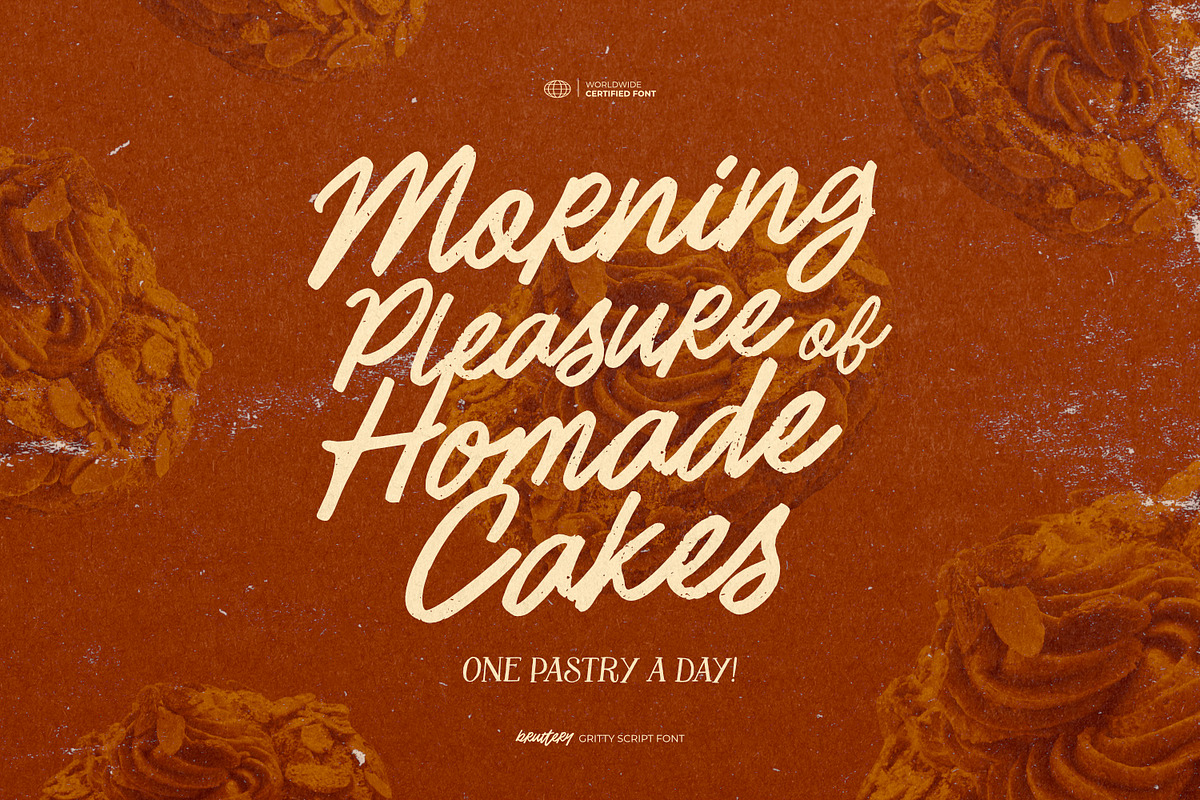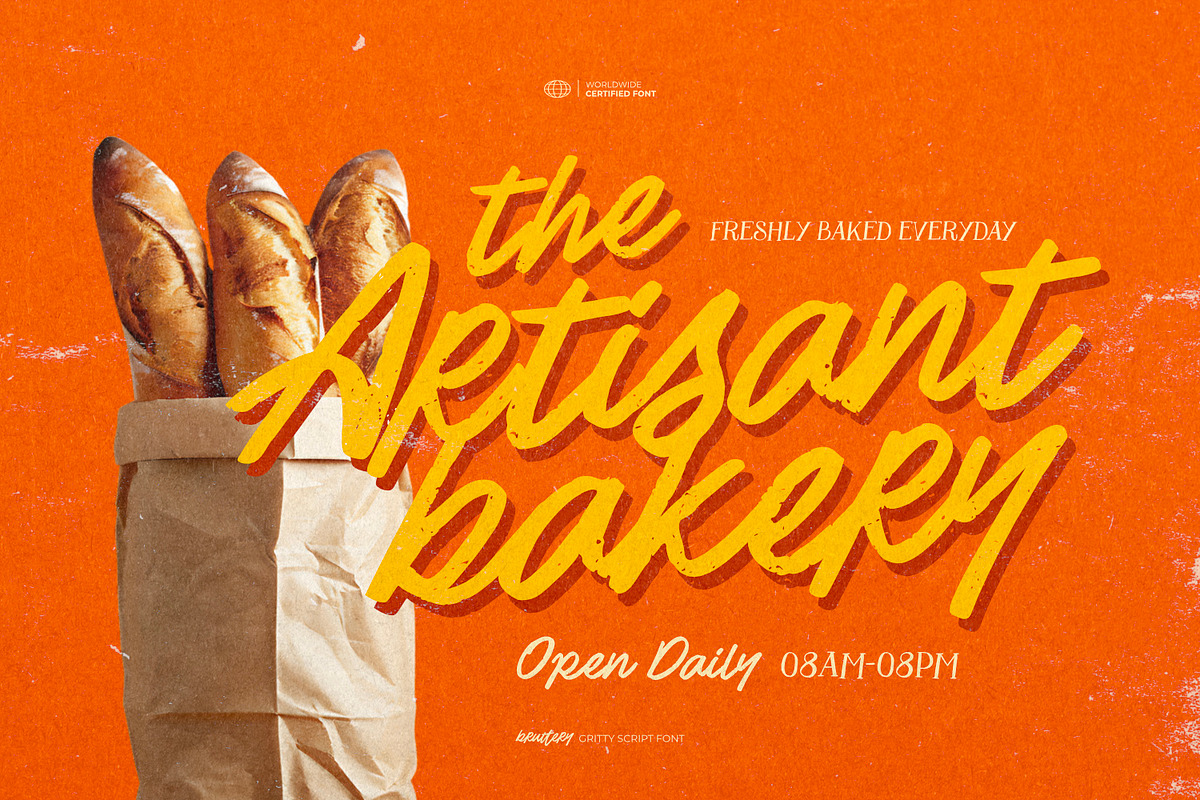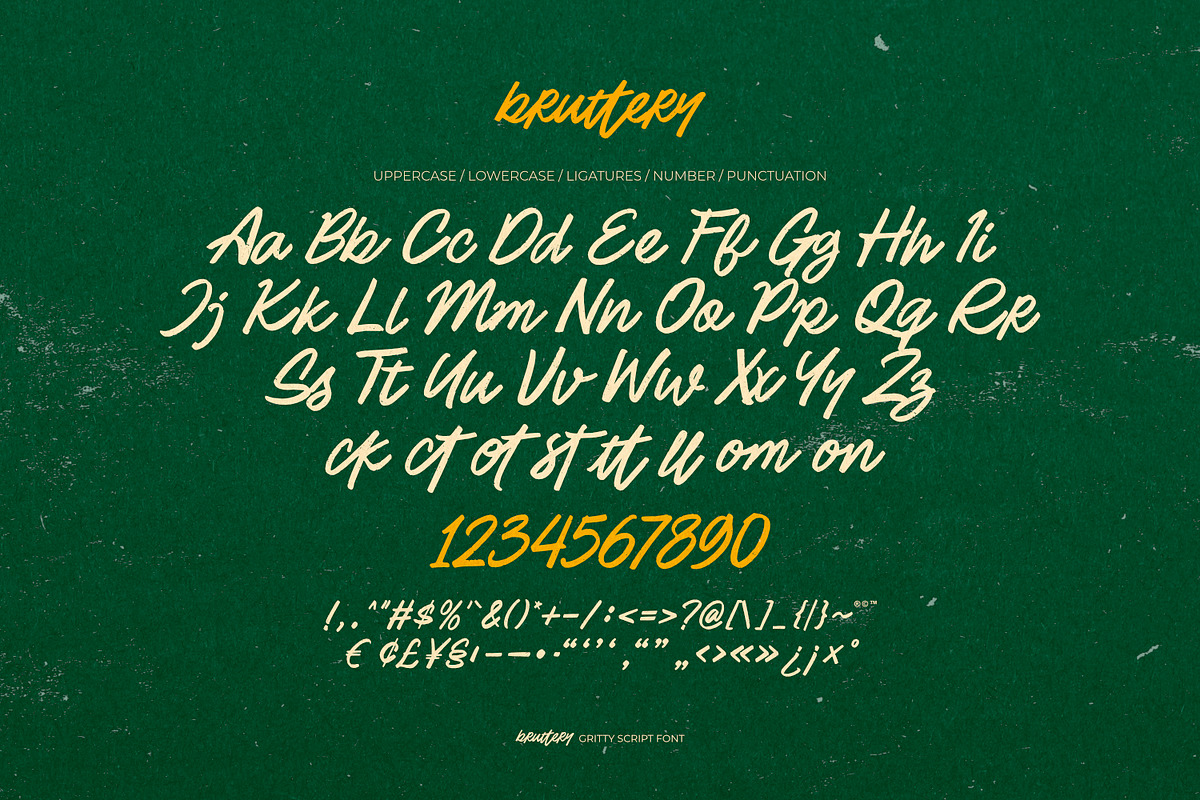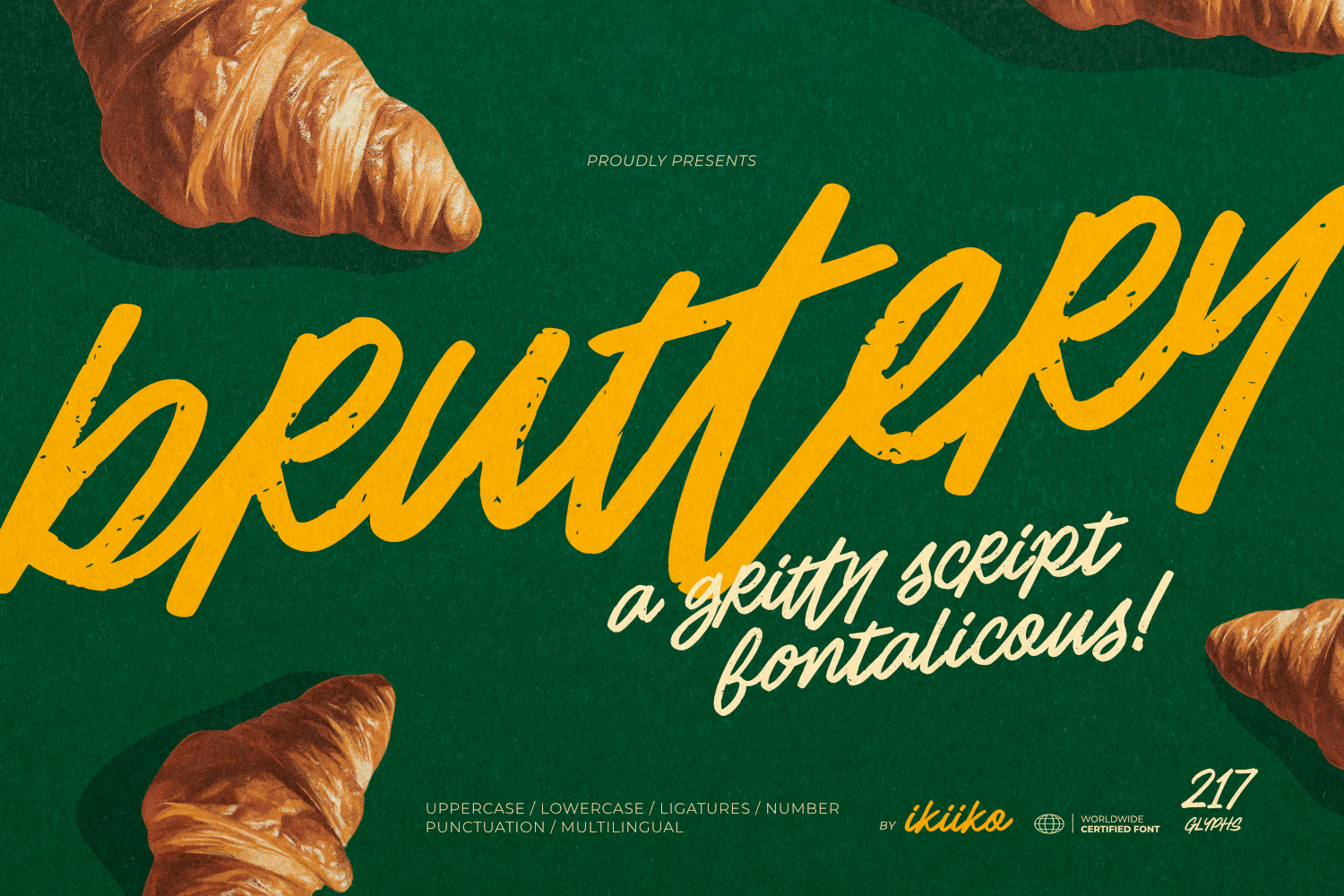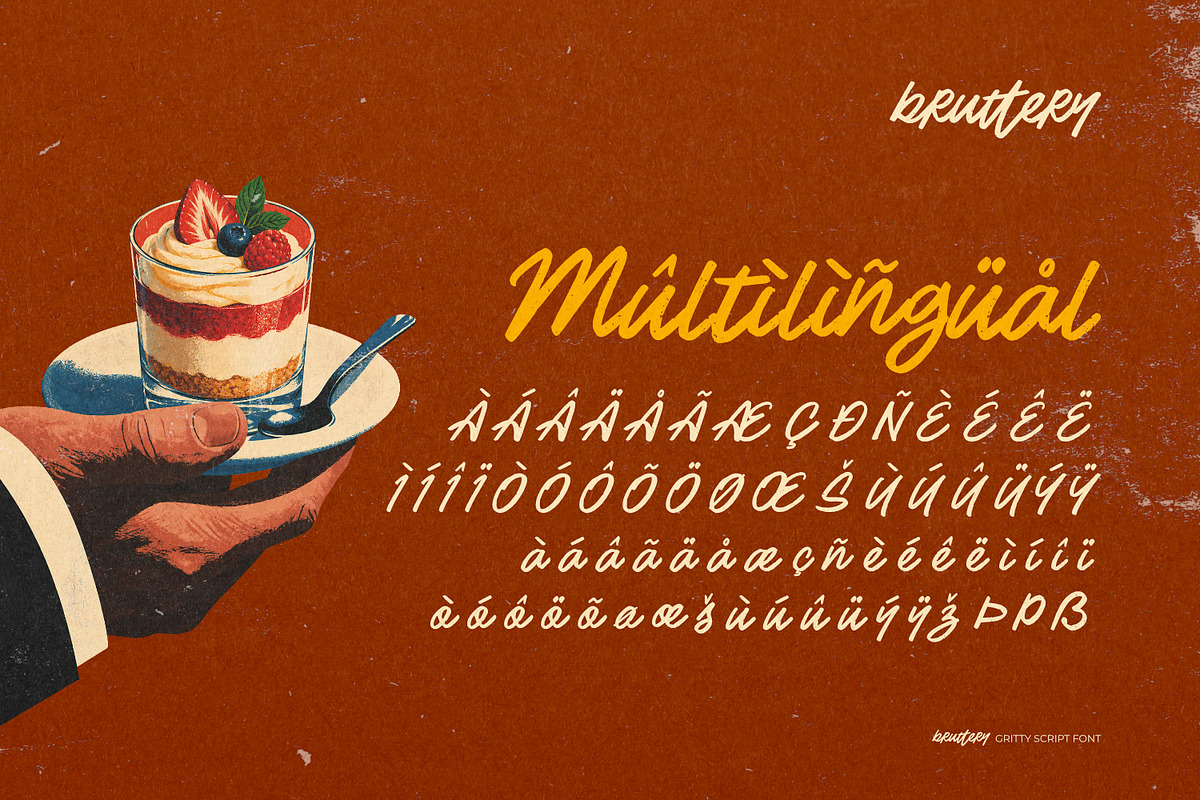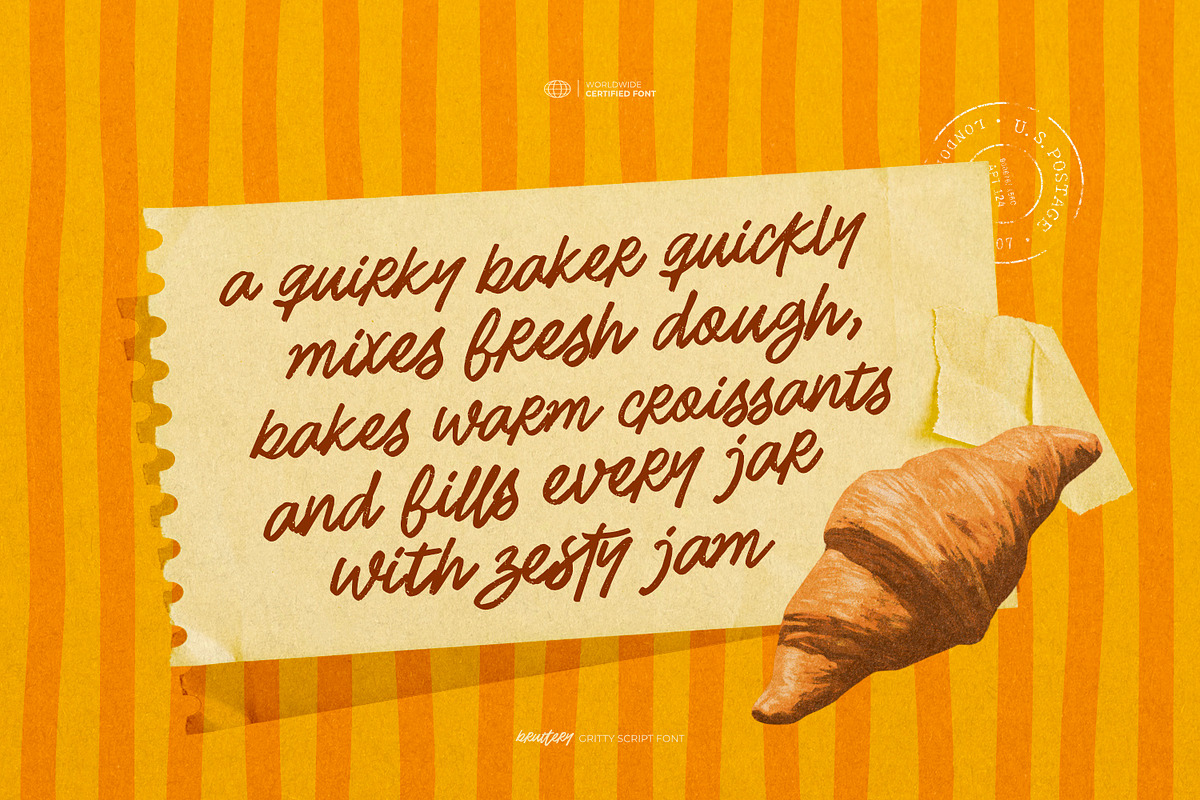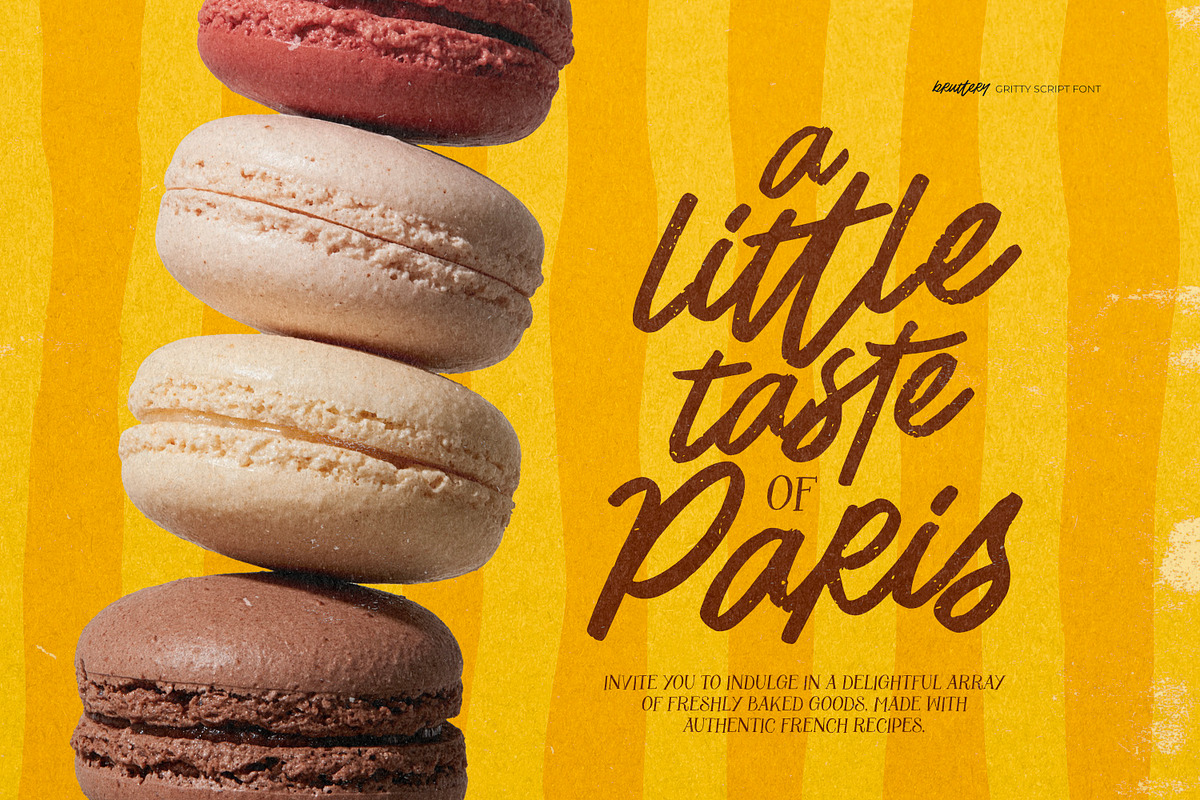
Bruttery - Gritty Script Font
Proudly Presents Bruttery - Gritty Script Font, created by ikiiko
Turn every word into a bold handwritten statement with Bruttery, a gritty script font packed with expressive brush movement, and handcrafted personality. Inspired by vintage sign painting, rough brush lettering, retro packaging, and handmade typography, Bruttery combines dynamic script strokes with an imperfect, distressed texture that gives every letter an authentic human touch. Its energetic connections, bold brush forms, and spontaneous curves create a natural handwritten rhythm, making your typography feel expressive, rebellious, and full of character.
Designed for creatives who love raw aesthetics over perfect precision, Bruttery brings together the charm of hand-painted lettering, vintage graphics, indie culture, and modern branding. Its bold strokes and loose letterforms make every word feel alive, while the gritty details add a tactile, printed character that works beautifully across both nostalgic and contemporary designs. Whether you're creating logo designs, food and bakery branding, café menus, packaging, posters, apparel, book covers, social media graphics, product labels, or editorial headlines, Bruttery delivers a distinctive handwritten look with gritty texture, expressive flow, and unmistakable personality. Its natural script rhythm makes it especially effective for designs that need warmth, attitude, and an authentic handmade feel.